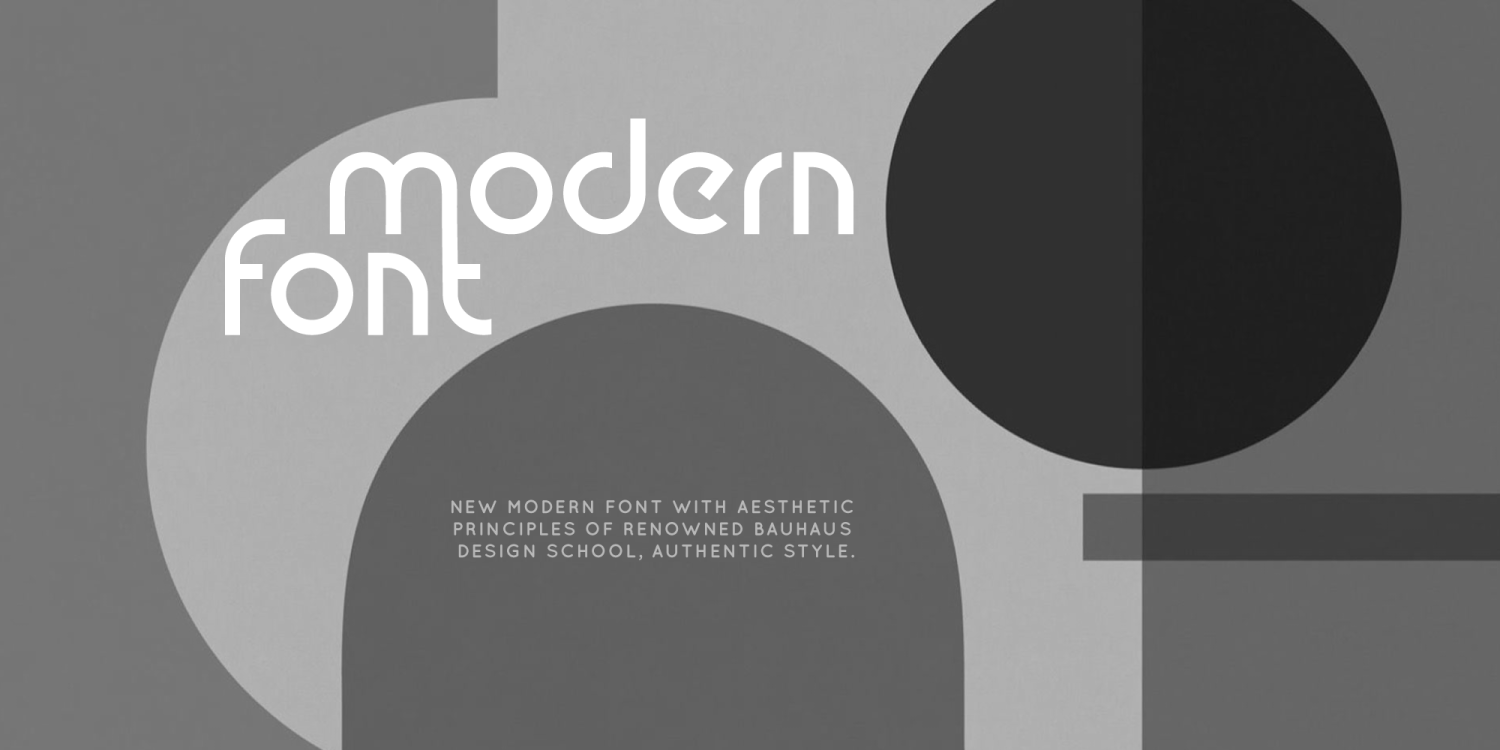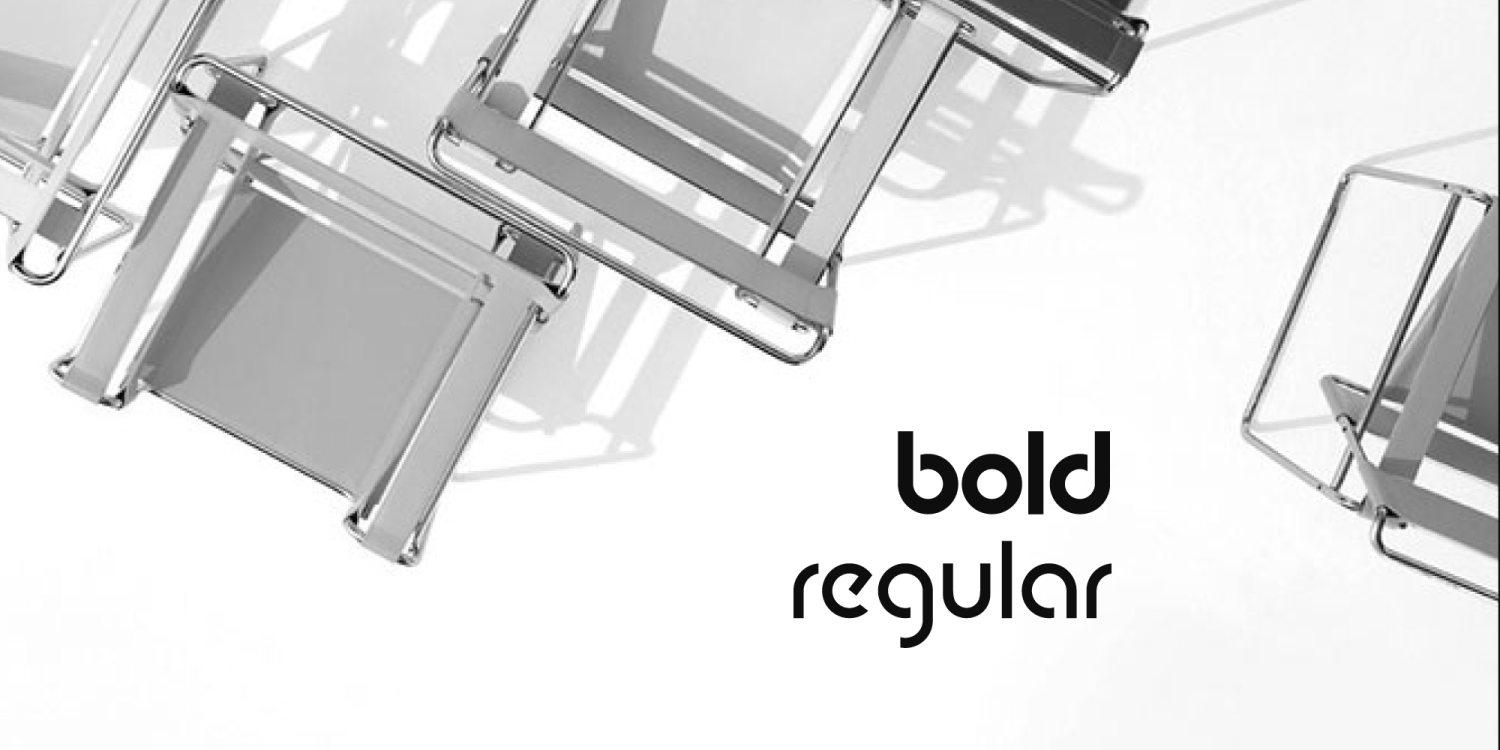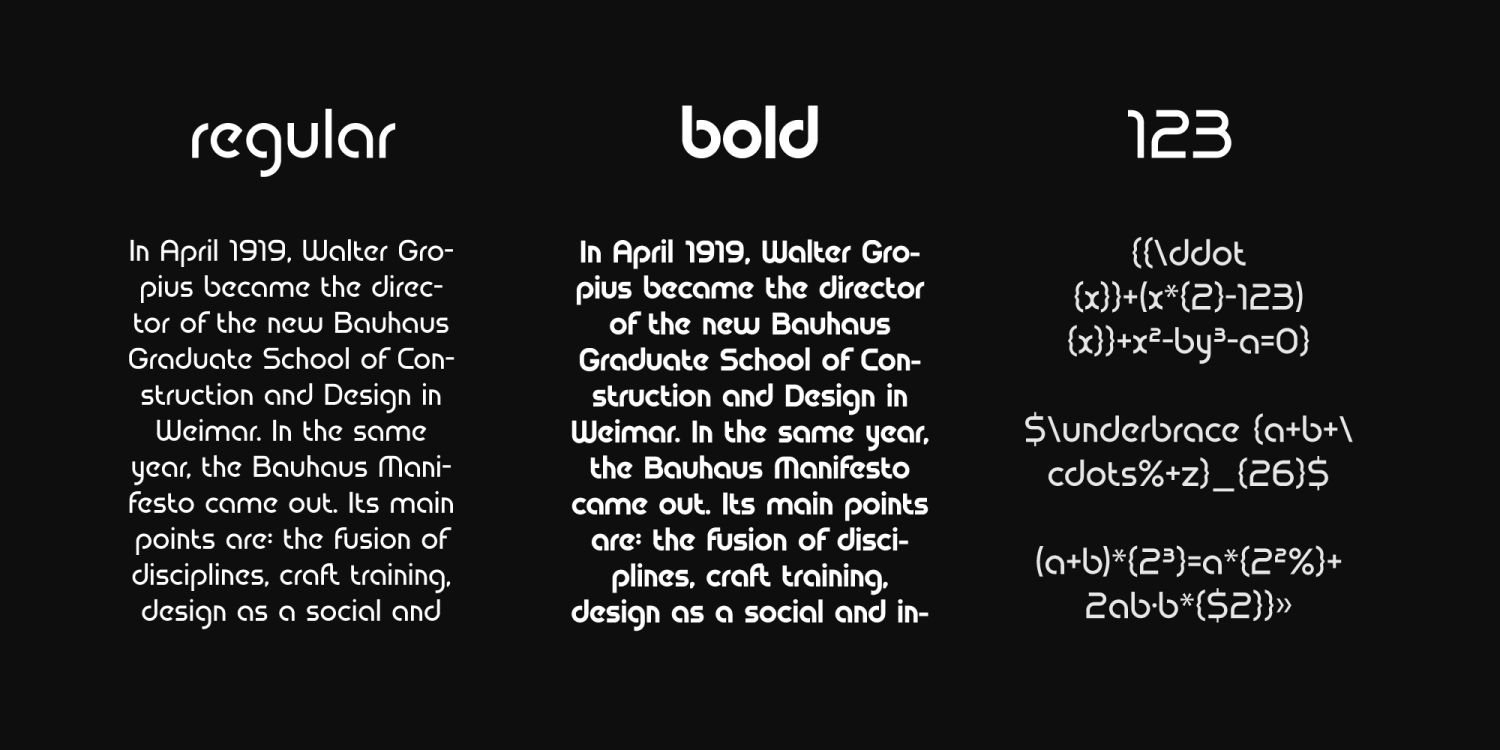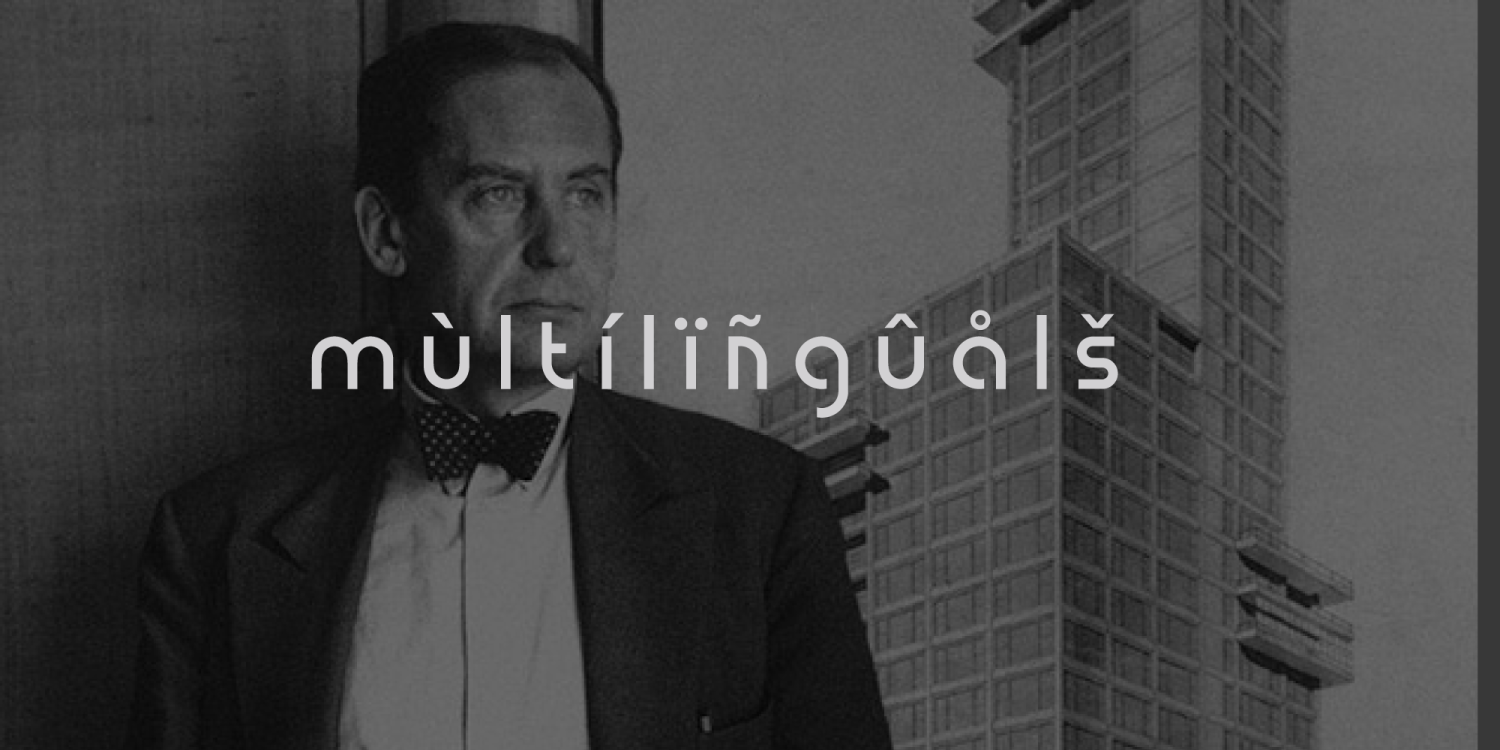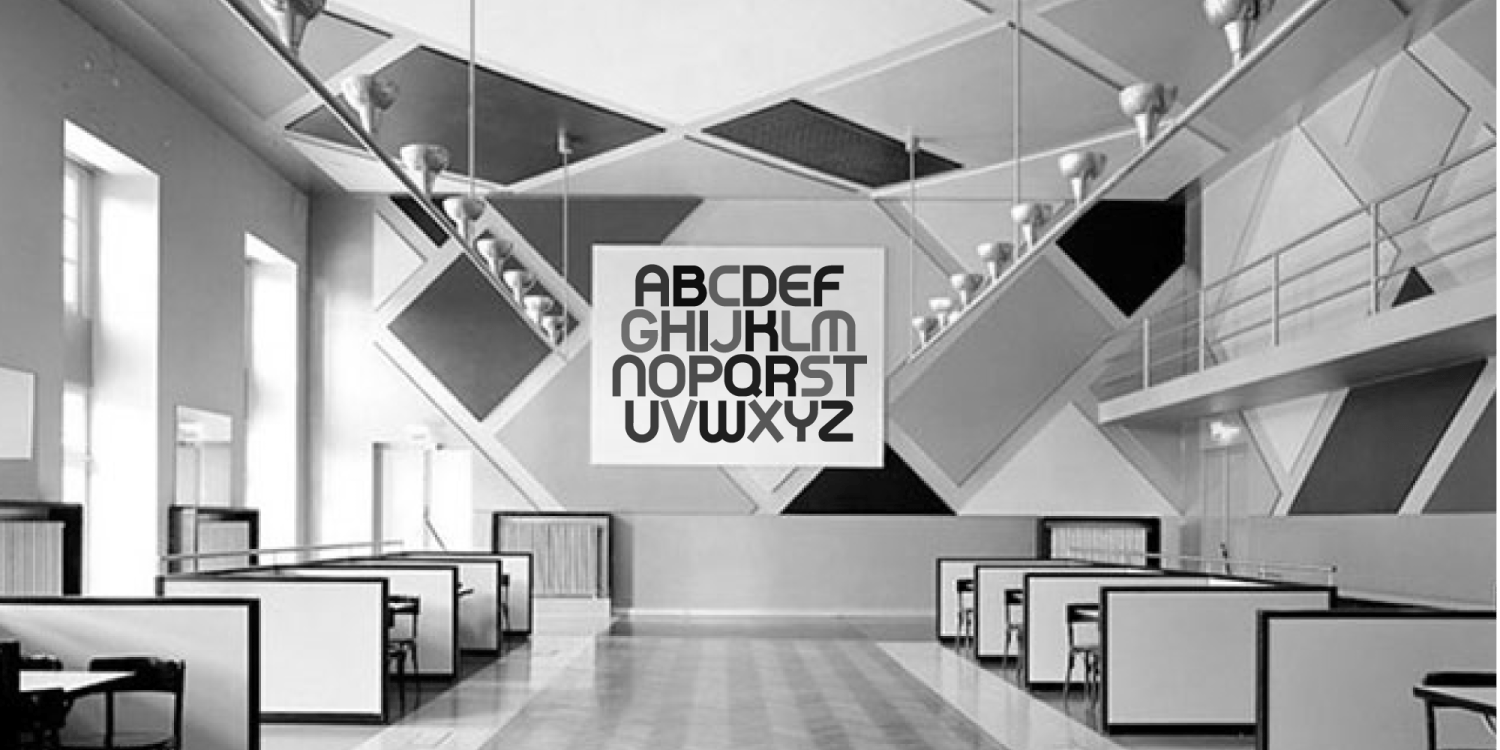
Alro is a geometric sans serif typeface inspired by Bauhaus modernism and the functional design principles of the early twentieth century. Its circular forms, simplified construction and distinctive lowercase shapes create a clean visual identity with a subtle retro character.
The family includes Regular and Bold styles, allowing Alro to work both as an expressive display face and for short paragraphs. It is especially suitable for editorial layouts, posters, architectural branding, exhibitions, packaging, signage, book covers, visual identities and contemporary projects influenced by modernist design.
Alro includes uppercase and lowercase letters, numerals, punctuation, symbols and multilingual Latin support.